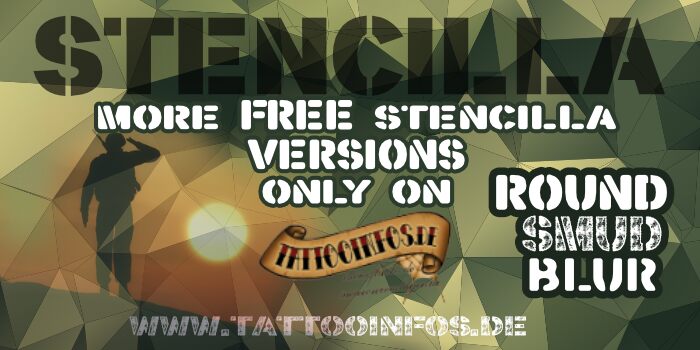
Stencilla by Otto Maurer is a free military stencil display font with massive geometric capitals and sharply engineered breaks. Its weight is uncompromising.
On packaging, the dense silhouettes can turn a product name into an industrial mark, and the same severe construction fits concert posters and action-game graphics featuring machinery, steel, or military imagery. Its strongest role is printed signage for military-themed events, tactical entertainment, or rugged equipment brands, where the sliced letters can function almost like a unit insignia.
Stencilla is intended for plotting work.